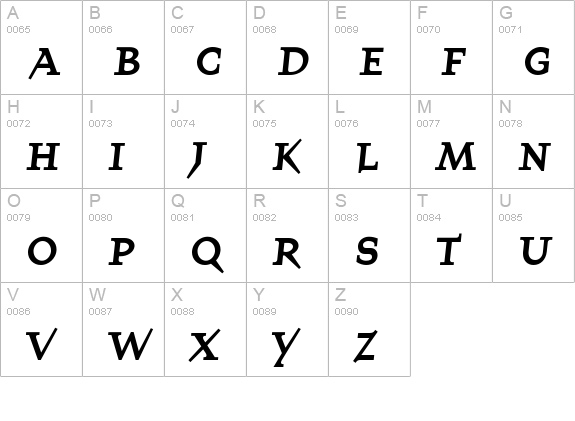
Quartet-Bold is a strong, high-contrast variant in the Quartet typeface family \xE2\x80\x94 well suited to headlines, attention-grabbing titles, and strong calls-to-action.
Quartet-Bold is a striking and powerful font that exudes confidence and elegance. Its bold and robust letterforms make a bold statement, capturing attention with its strong presence. Designed with meticulous attention to detail, this font is perfect for projects that require a touch of sophistication and a touch of modernity. With its clean lines and strong strokes, Quartet-Bold stands out on both digital and print mediums, ensuring legibility and readability even at smaller sizes. Its versatility allows it to be used for a wide range of applications, from headlines and titles to branding and advertising. One of the best features of Quartet-Bold is that it is available for free download at FontsMarket.com. This means that designers, creatives, and enthusiasts alike can easily access and utilize this fantastic font without any financial constraints. Whether you're a professional designer looking for a reliable and stylish typeface or an amateur just starting out, Quartet-Bold offers a high-quality option that won't break the bank. So why wait? Enhance your design projects with Quartet-Bold and experience the impact it can bring to your work. Download it freely at FontsMarket.com and unlock a world of creative possibilities.